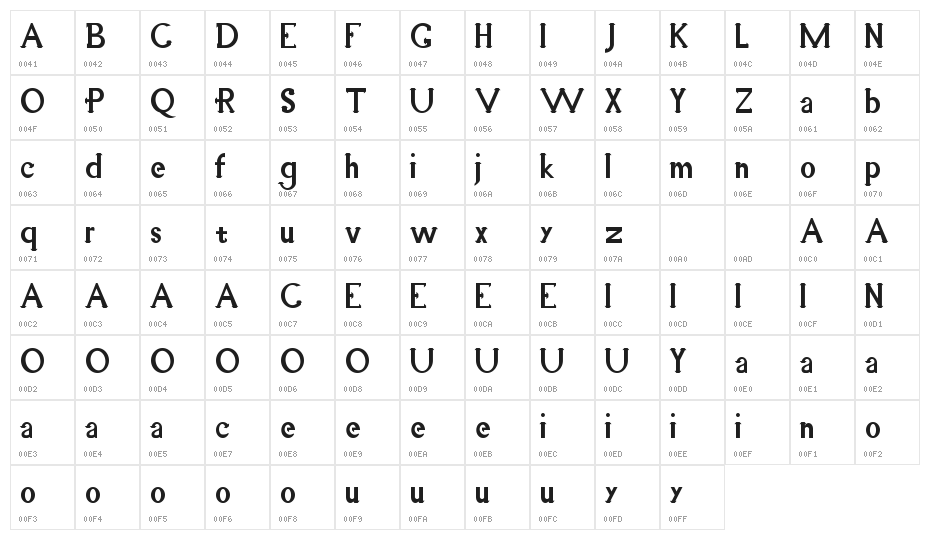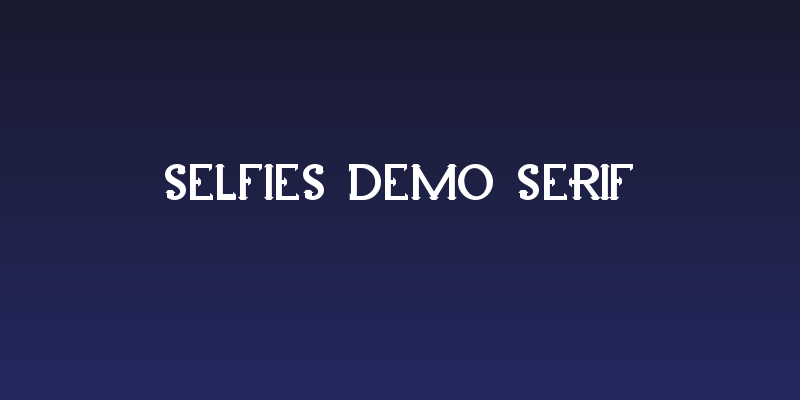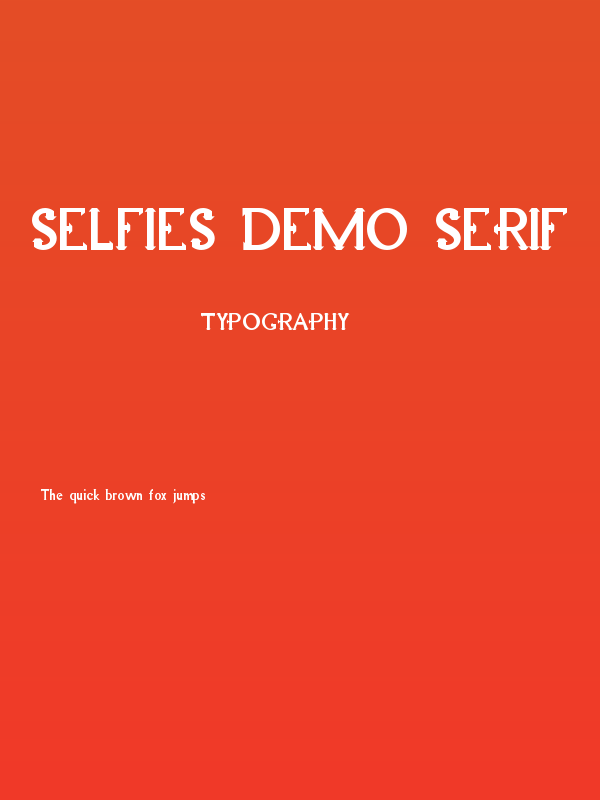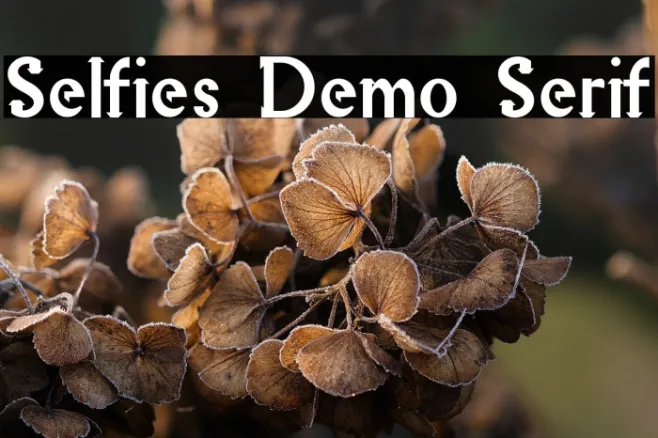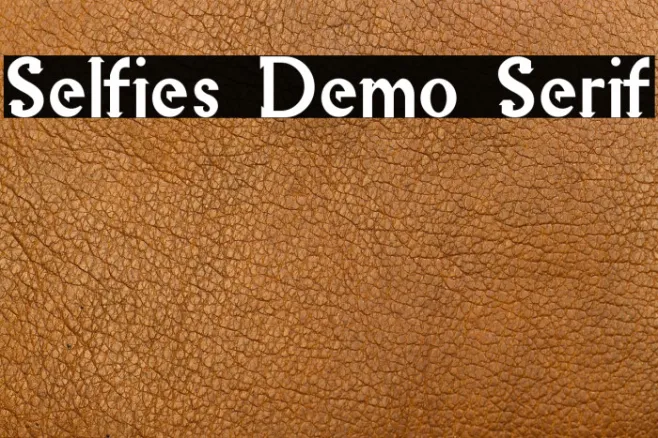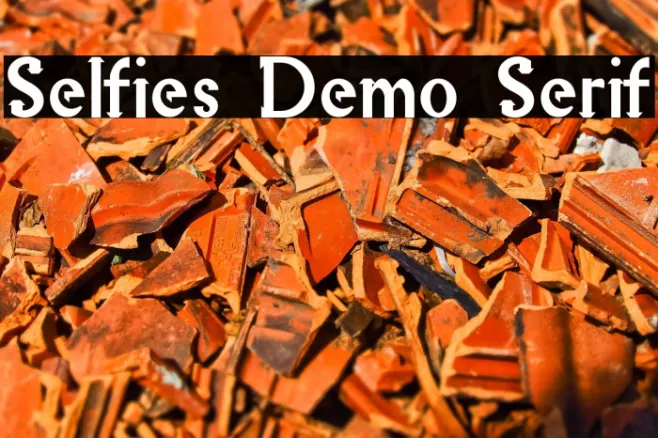
Selfies Demo Serif Font
Selfies Demo Serif Description
This font features a unique blend of traditional serif elements with a modern twist. The characters are bold and have a strong presence, with distinct serifs that add a touch of elegance and sophistication. The uppercase letters are particularly striking, with a commanding appearance that makes them ideal for headlines or titles. The lowercase letters maintain a consistent style, ensuring readability while still offering a decorative flair. The numerals and special characters are designed to match the overall aesthetic, providing a cohesive look across all text elements. The font's boldness and distinct serifs make it suitable for projects that require a strong visual impact.
| Proposed Projects | Ideal for branding, headlines, posters, and any design requiring a bold, elegant typeface. |